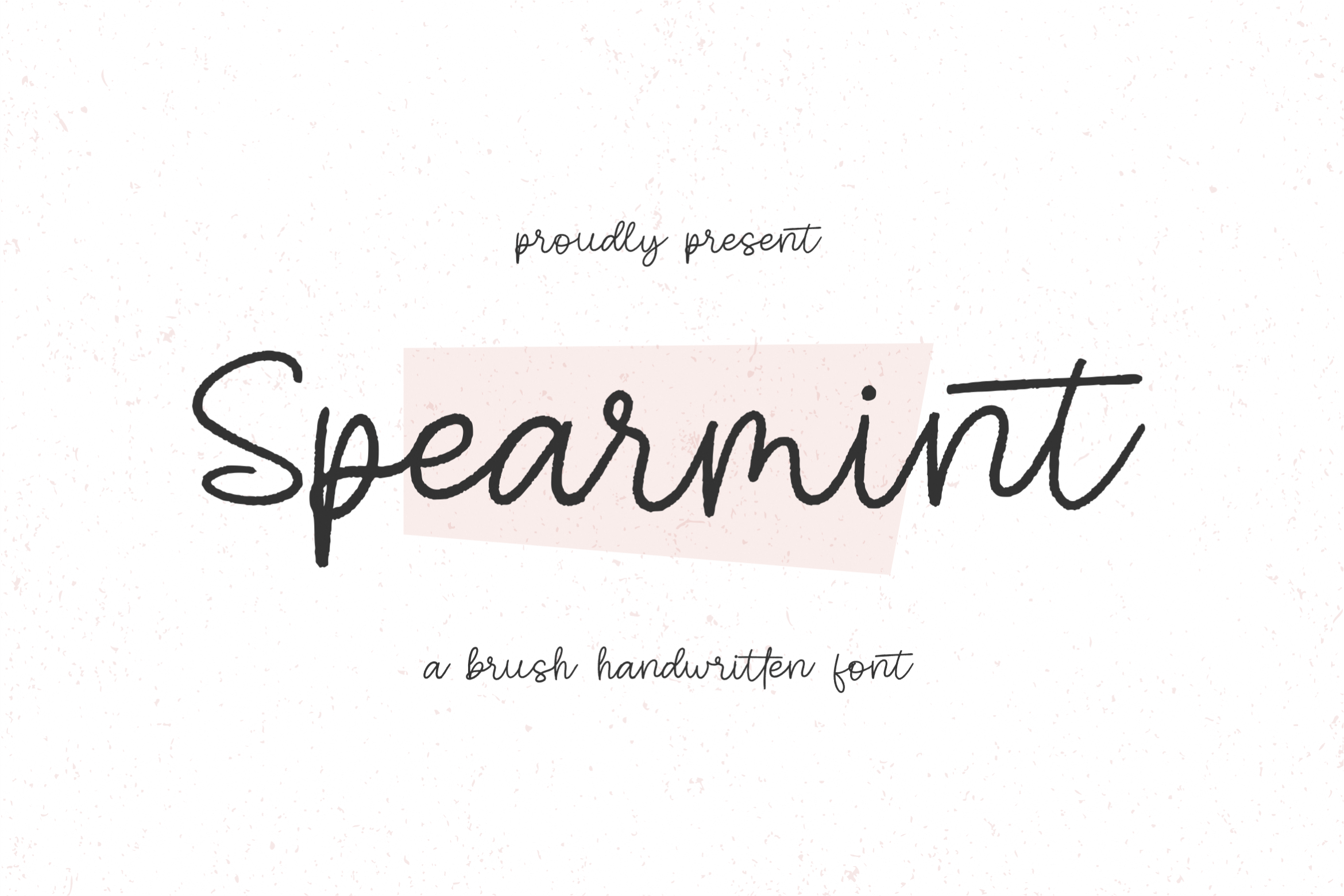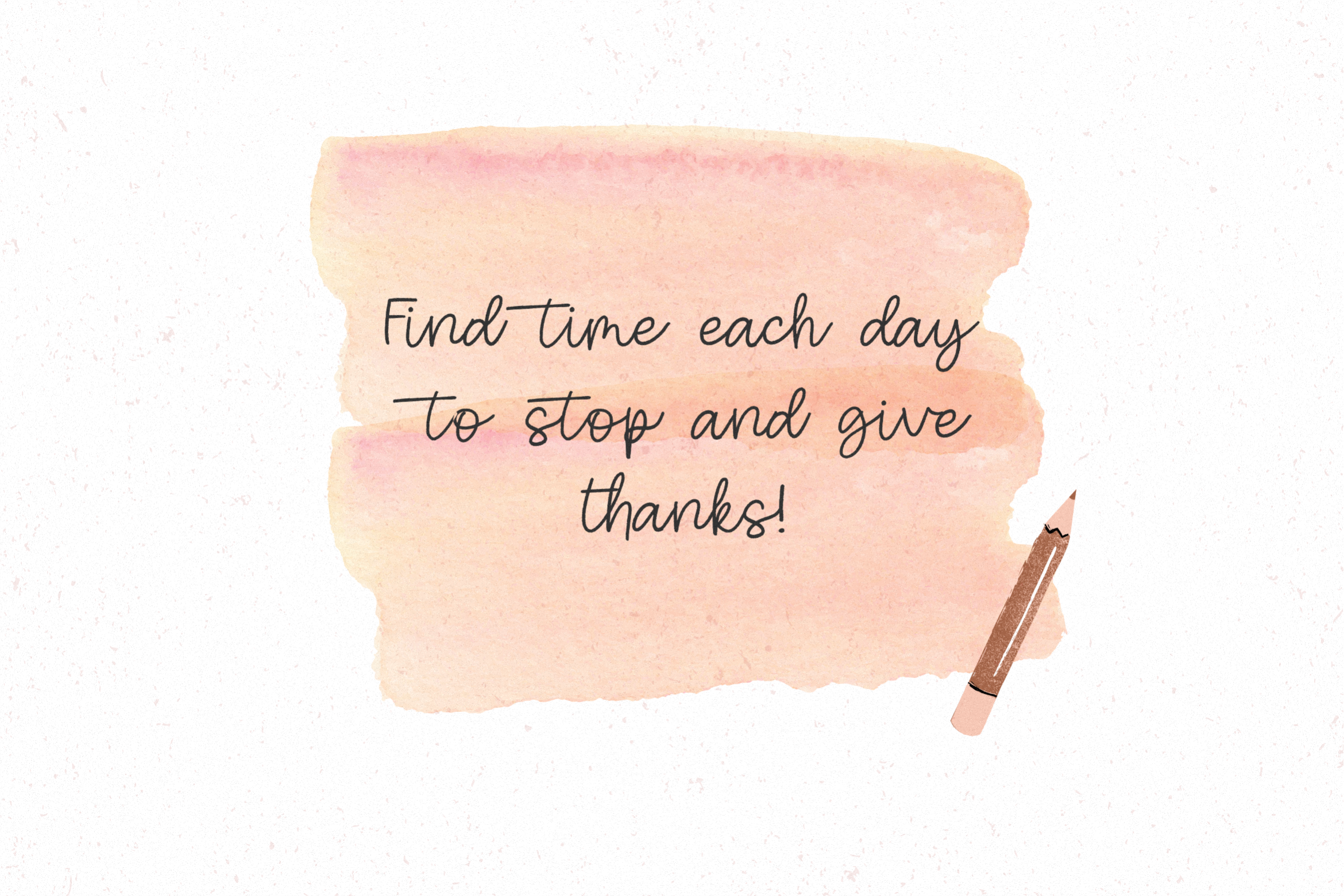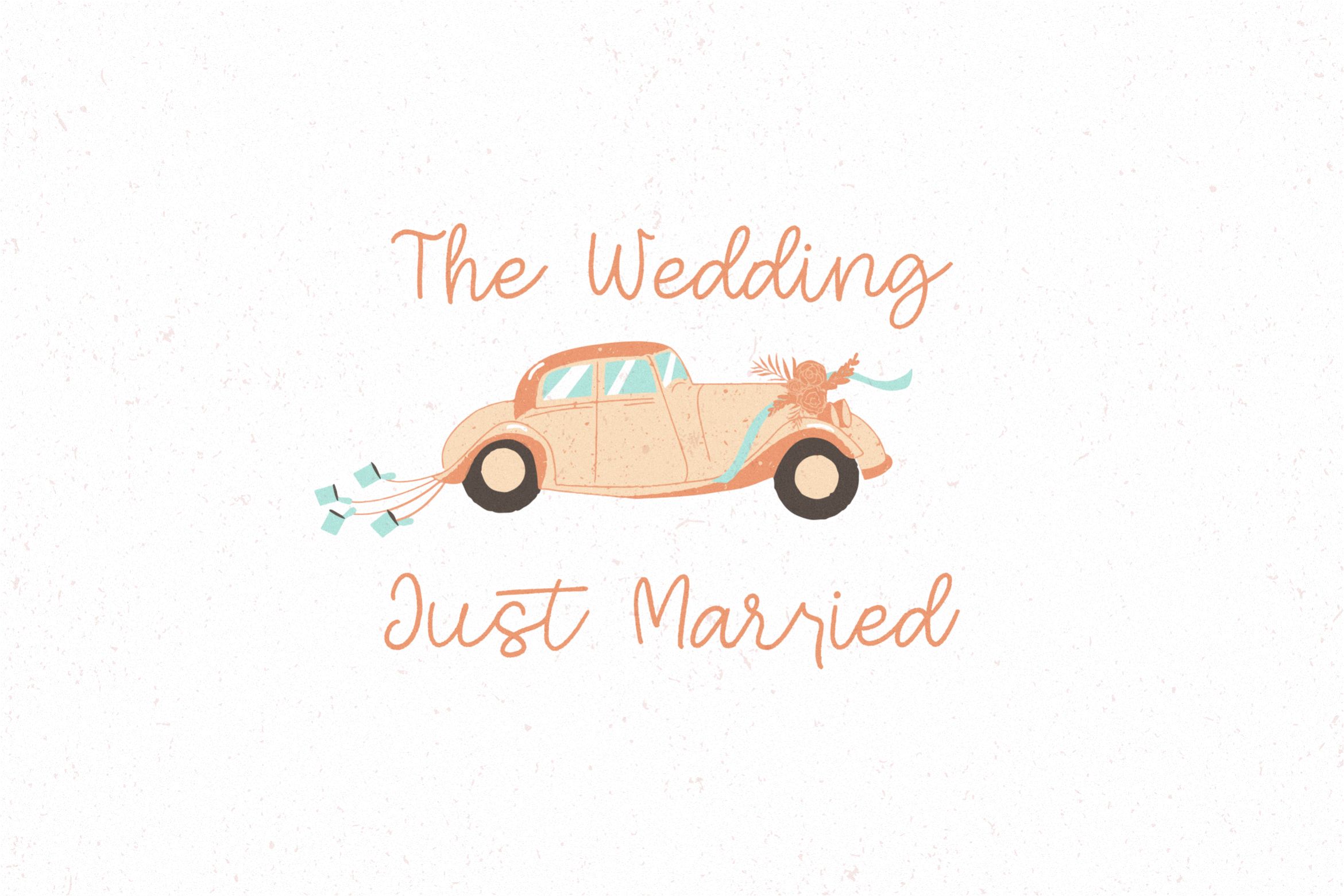
Spearmint Font
Spearmint Handwritten Font
It’s a delicate and thin lettered handwritten typeface. This versatile script font has a wide spectrum of applications ranging from greeting cards to headlines and is guaranteed to add a romantic feel to your next project.